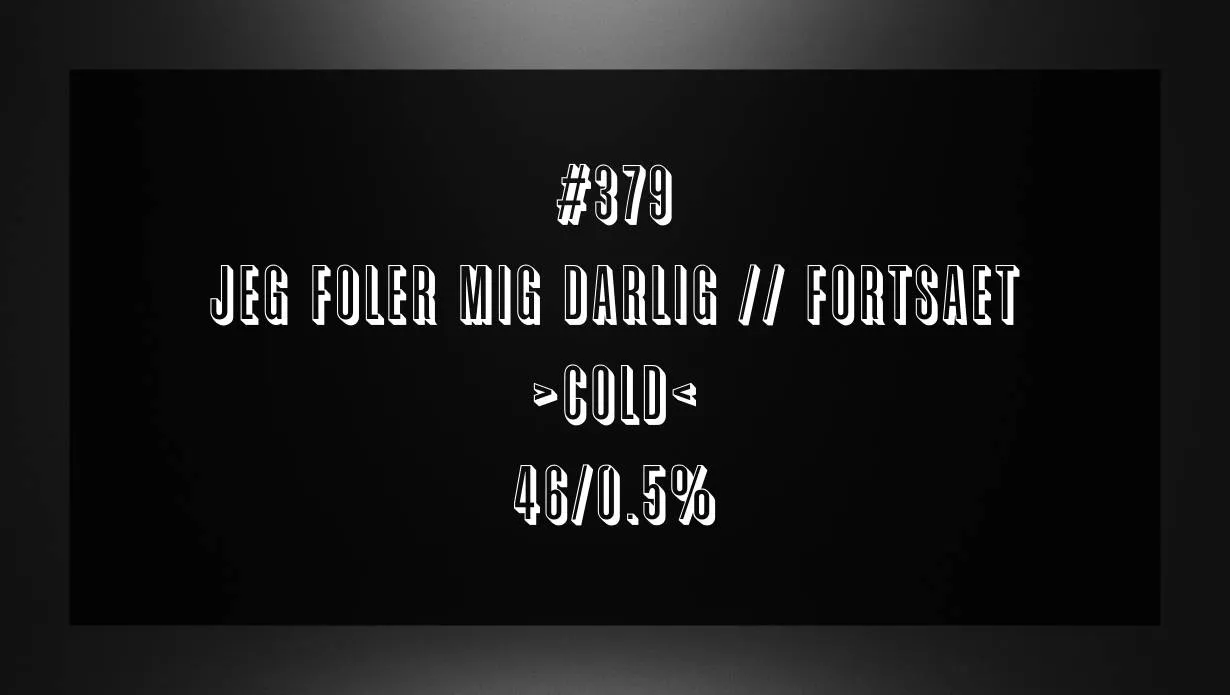
Graphique Font is a display typeface designed in the early 1950s by Swiss graphic designer Hermann Eidenbenz. It was released by the Linotype foundry in 1957.
The design is based on Eidenbenz’s earlier Klingspor typeface FF Schmid (1936), which itself was inspired by the work of German type designer Rudolf Koch.
Graphique is available in several weights and widths, making it a versatile font for a variety of applications.